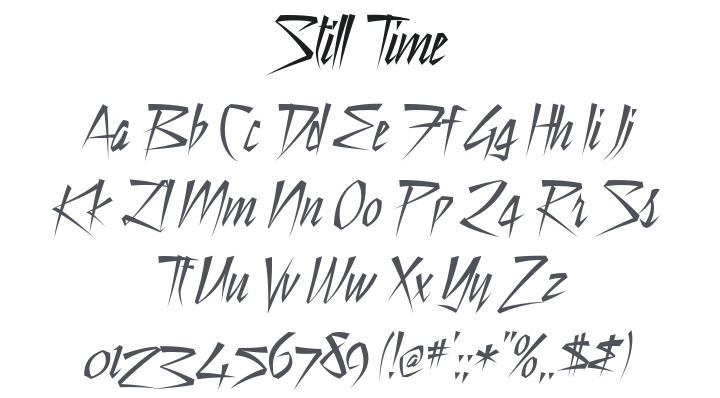
Still Time Font
About Still Time
Still Time is a bold, angular slash script typeface inspired by the hand-lettering on Prince's Purple Rain album cover — sharp, aggressive strokes with a dramatic forward lean that feels more edgy and confrontational than the original. It became a go-to visual shorthand for vaporwave and 1980s nostalgia in the 2010s. Perfect for music branding, retro-80s designs, vaporwave aesthetics, concert posters, and any headline needing electrifying, rock-star energy.